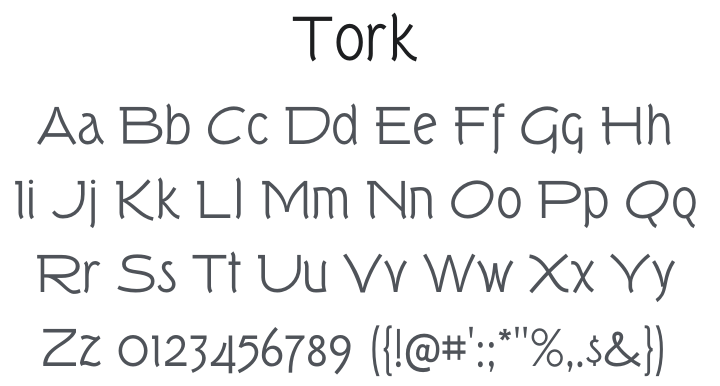
Tork Font Family
About Tork
Tork is a clean, modern sans-serif with a subtle but unmistakable quirk — stroke endings taper and splay into organic, slightly irregular terminals rather than the usual clean cuts, giving familiar letterforms an unexpected handmade warmth. It sits somewhere between a geometric sans and a humanist one, quietly unconventional. Available in Regular, Italic, Bold, and Bold Italic. Perfect for editorial design, branding, UI text, and any project needing a friendly, slightly offbeat sans-serif personality.